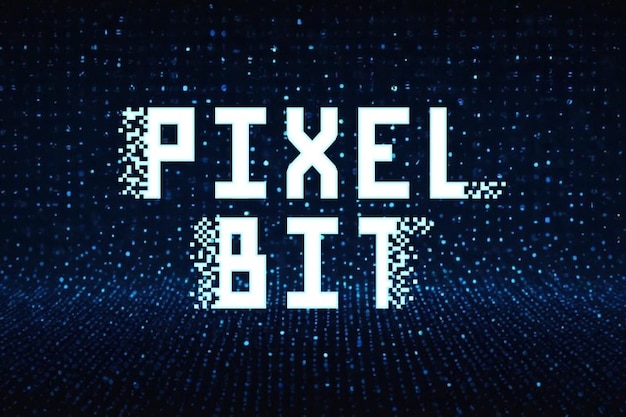
Pixel Bit Font
Pixel Bit is a modern font that embraces the digital age with its sharp, pixelated design. Inspired by tech, cyber, and technology aesthetics, each character appears as if it were crafted from tiny bits of data. Perfect for futuristic branding, tech-related projects, or digital art, Pixel Bit adds a sleek, modern edge that captures the essence of the cyber world.